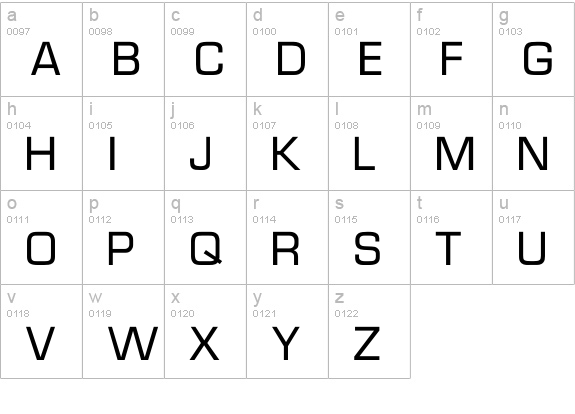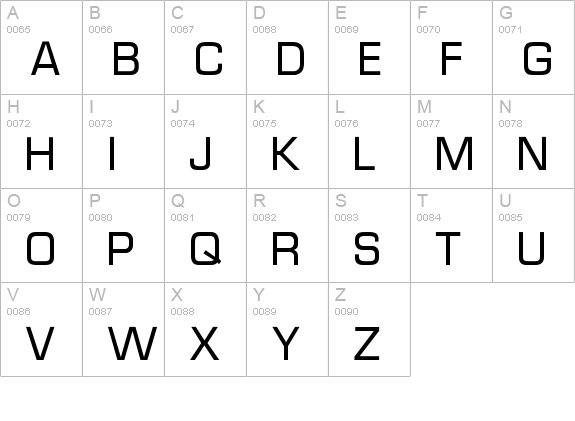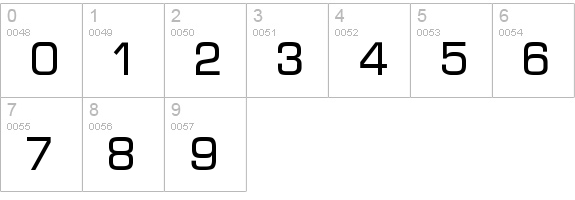
Introducing MicroTechnic font, a sleek and modern typeface designed for technology and innovation. With its clean lines and futuristic aesthetic, MicroTechnic is perfect for projects that require a cutting-edge look. This versatile font is ideal for use in digital designs, branding, and tech-related content. MicroTechnic is available for free download at FontsMarket.com, making it easily accessible for designers and creatives looking to add a touch of sophistication to their work. Whether you're working on a website, app interface, or marketing materials, MicroTechnic's sharp and precise design will help your content stand out. Embrace the future of typography with MicroTechnic font and elevate your projects with its contemporary style and professional appeal. Download it now and bring a modern edge to your designs.